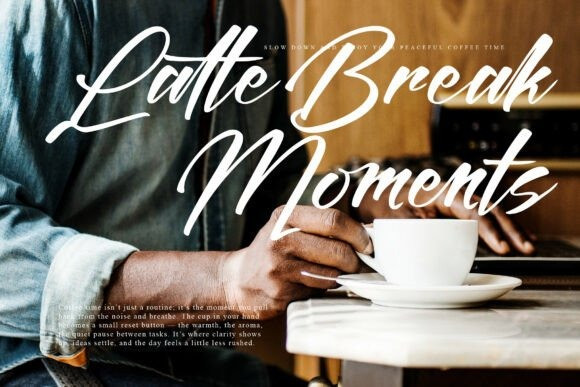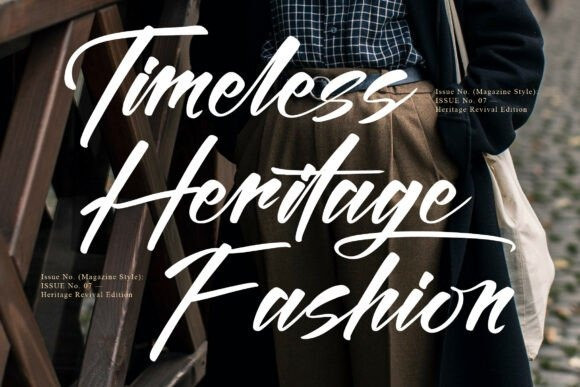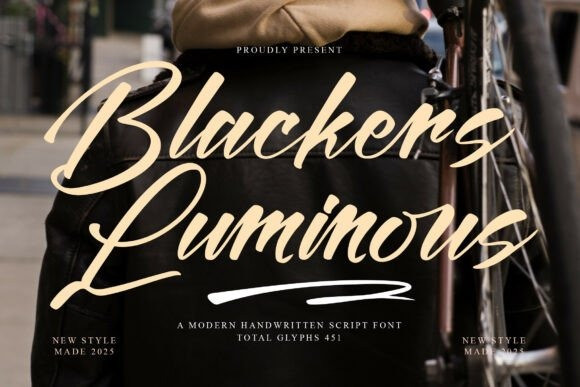
Blackers Luminous Font
Blackers Luminous Font is a stylish and dynamic modern handwritten script font that exudes confidence and a cool, urban edge, perfect for branding that needs a bespoke and contemporary signature feel.This high-quality Blackers Luminous typeface is defined by its smooth, sweeping connectivity and bold stroke variations, giving it the appearance of sophisticated brush lettering captured in motion. The naturalistic flow ensures a high degree of authenticity and personal charm.The Blackers Luminous font is exceptional for fashion labels, custom merchandise, street-style branding, social media influencers, and creative agencies. This highly legible script font, complete with a generous set of 451 total glyphs, is a versatile and powerful tool for crafting memorable logos and dynamic typographic designs.With PUA encoding included, all special characters and decorative elements are easily accessible without additional software.